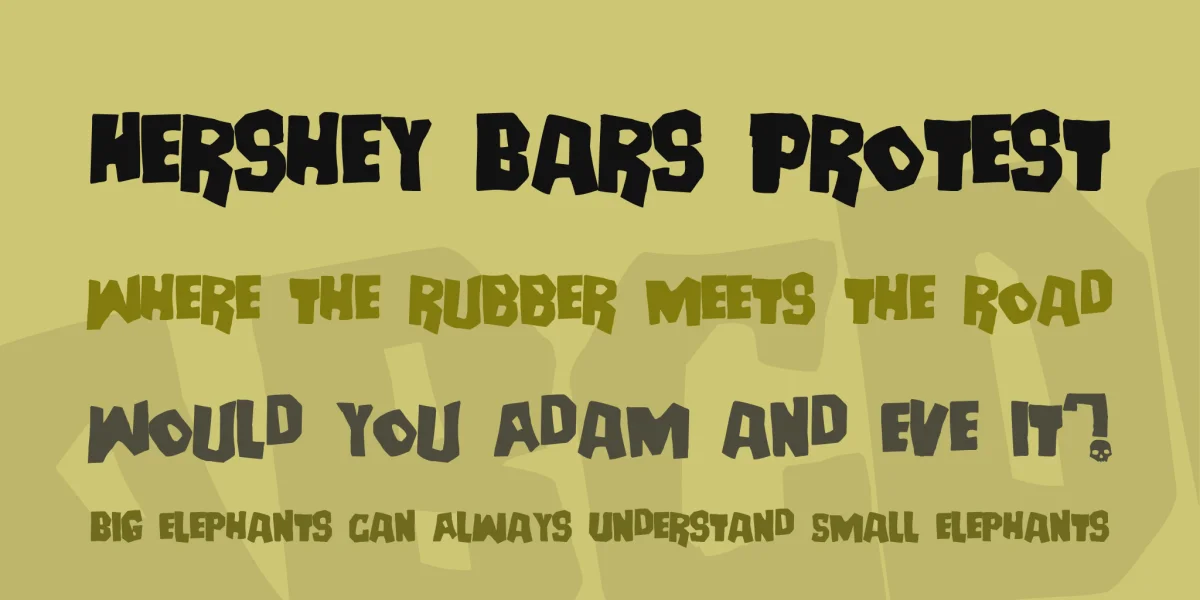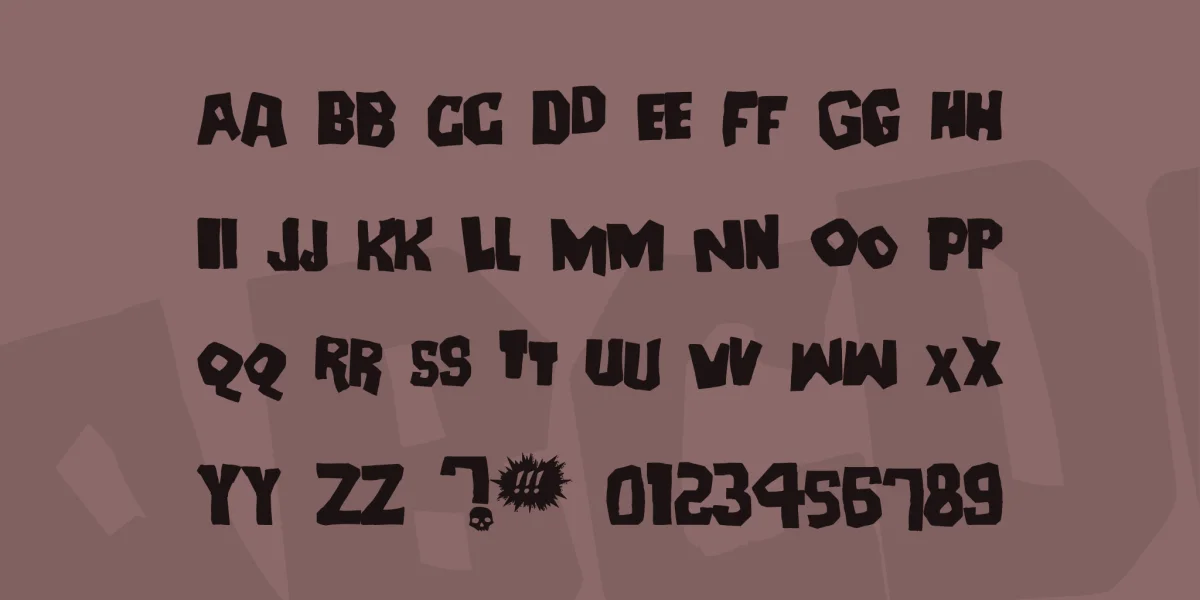
IT's based on Night of the Living Dead...
I personally found it kinda f***** that no one had made a font based on the writing from this movie before, but what the f***.